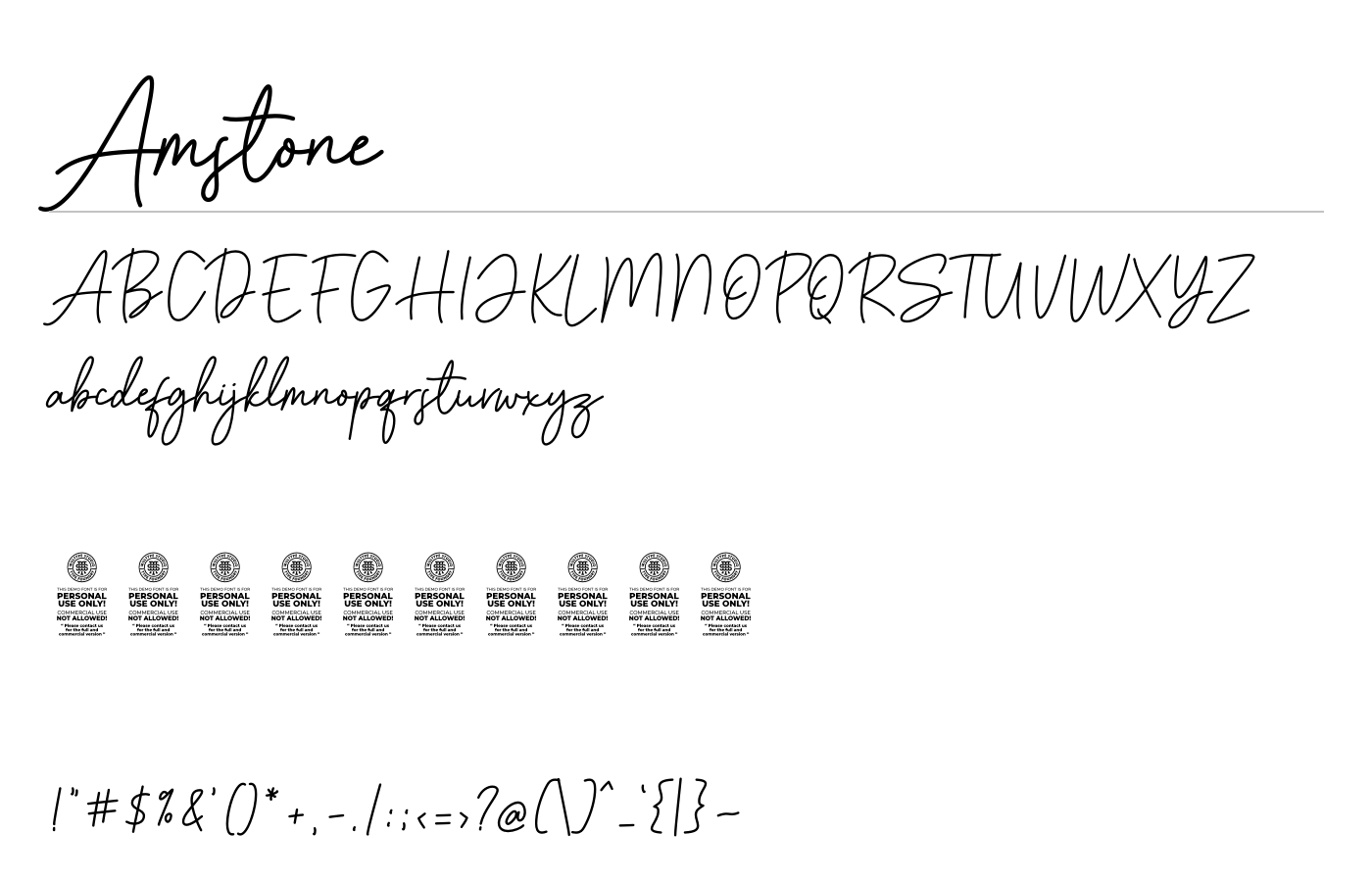
Amstone is a delicate, handwritten script font with a light and airy feel, characterized by its smooth flowing strokes and elegant, slightly informal style. It works beautifully for designs that seek a personal, creative touch, making it ideal for invitations, branding, and editorial projects that want a refined yet approachable look. Its clean and slender letterforms balance legibility with charm, perfect for adding a sophisticated handwritten flair.
Amstone Font
About Amstone Font